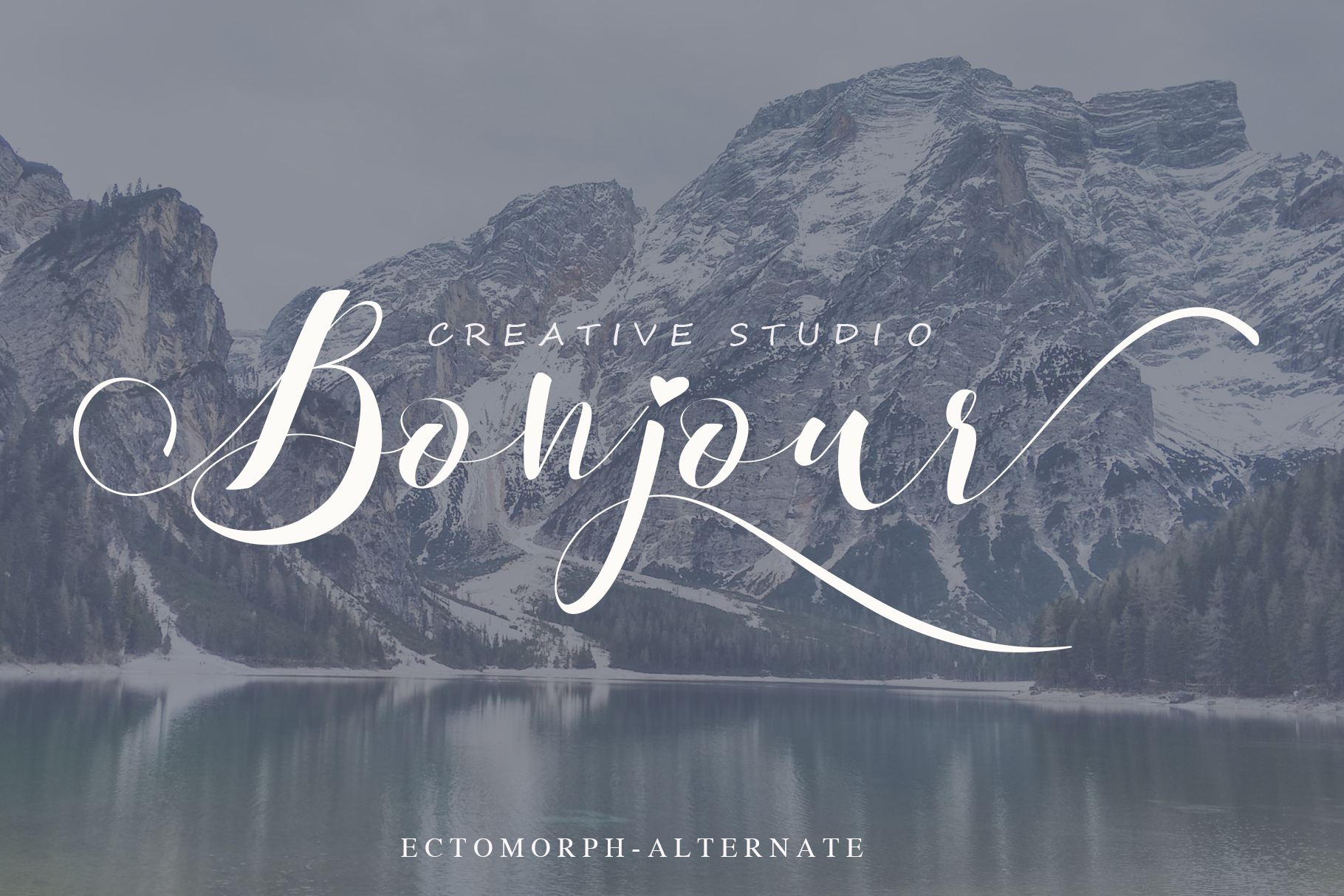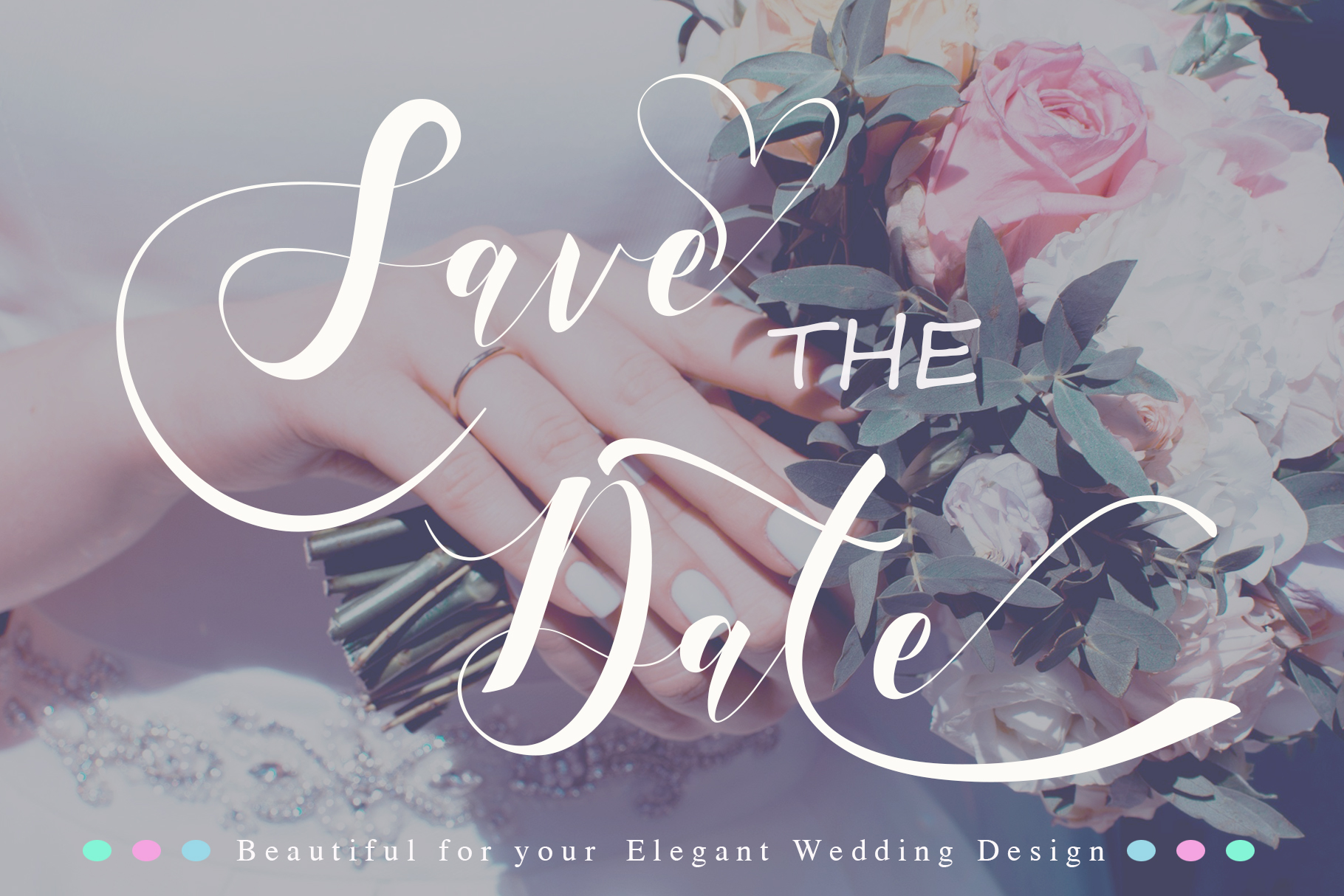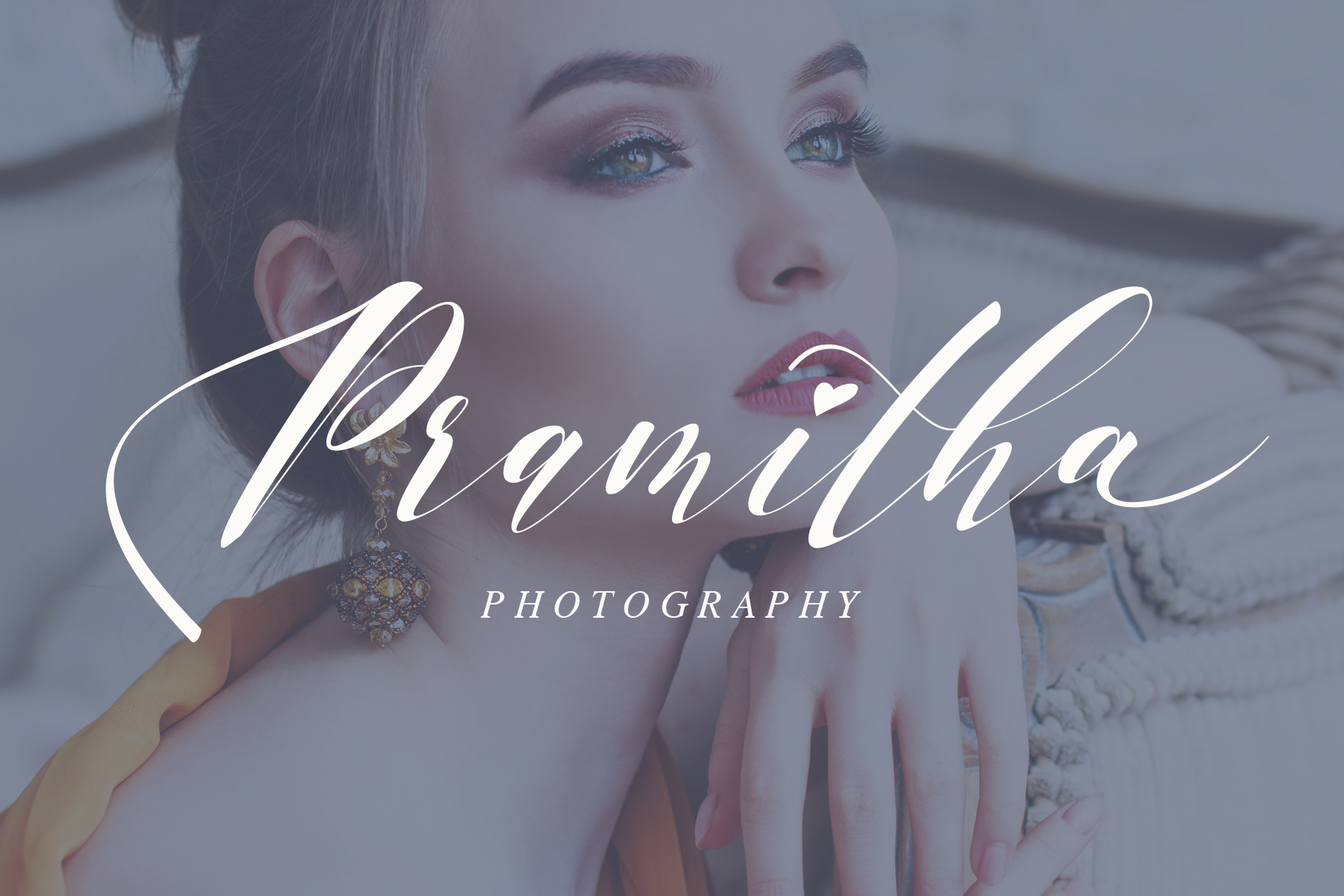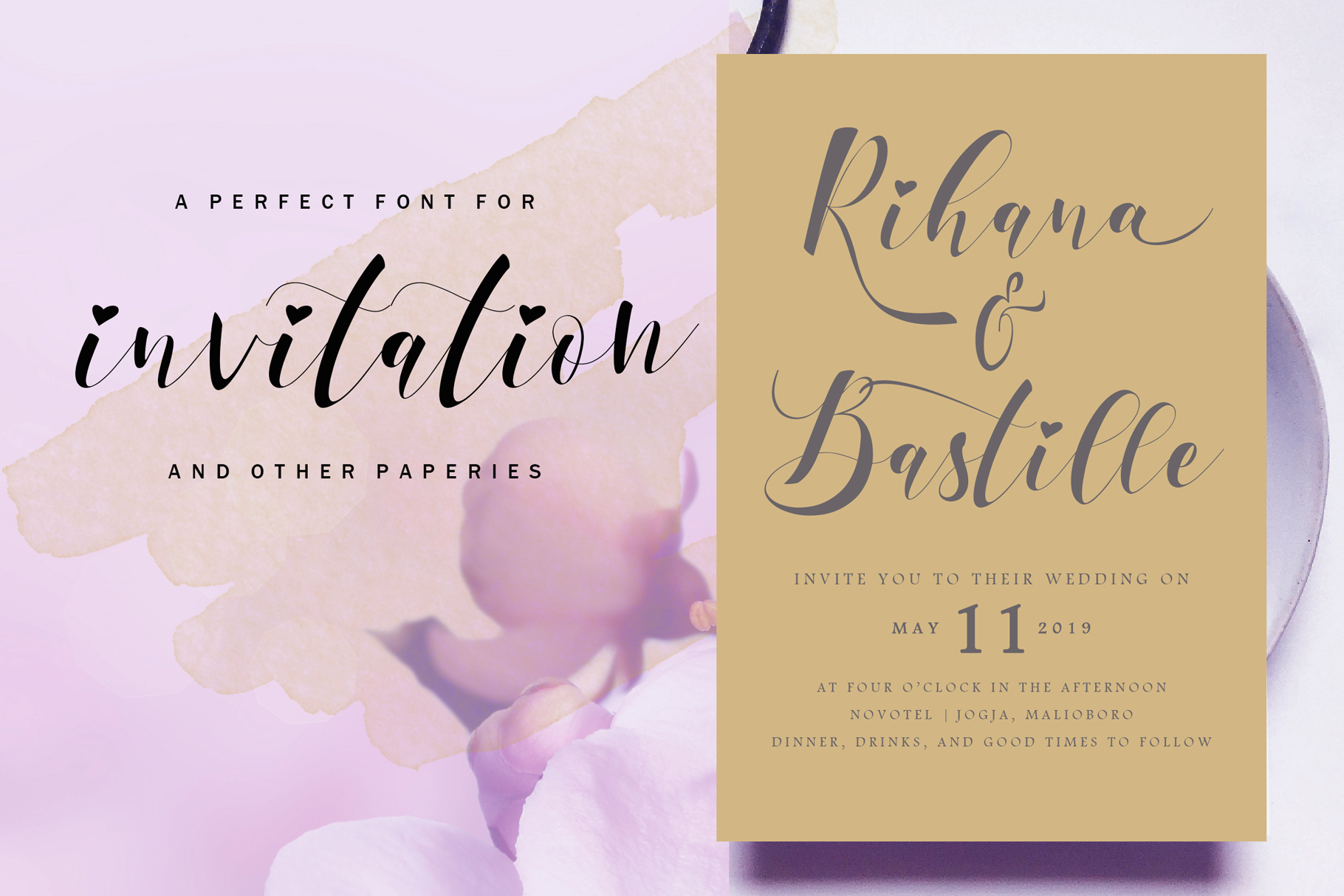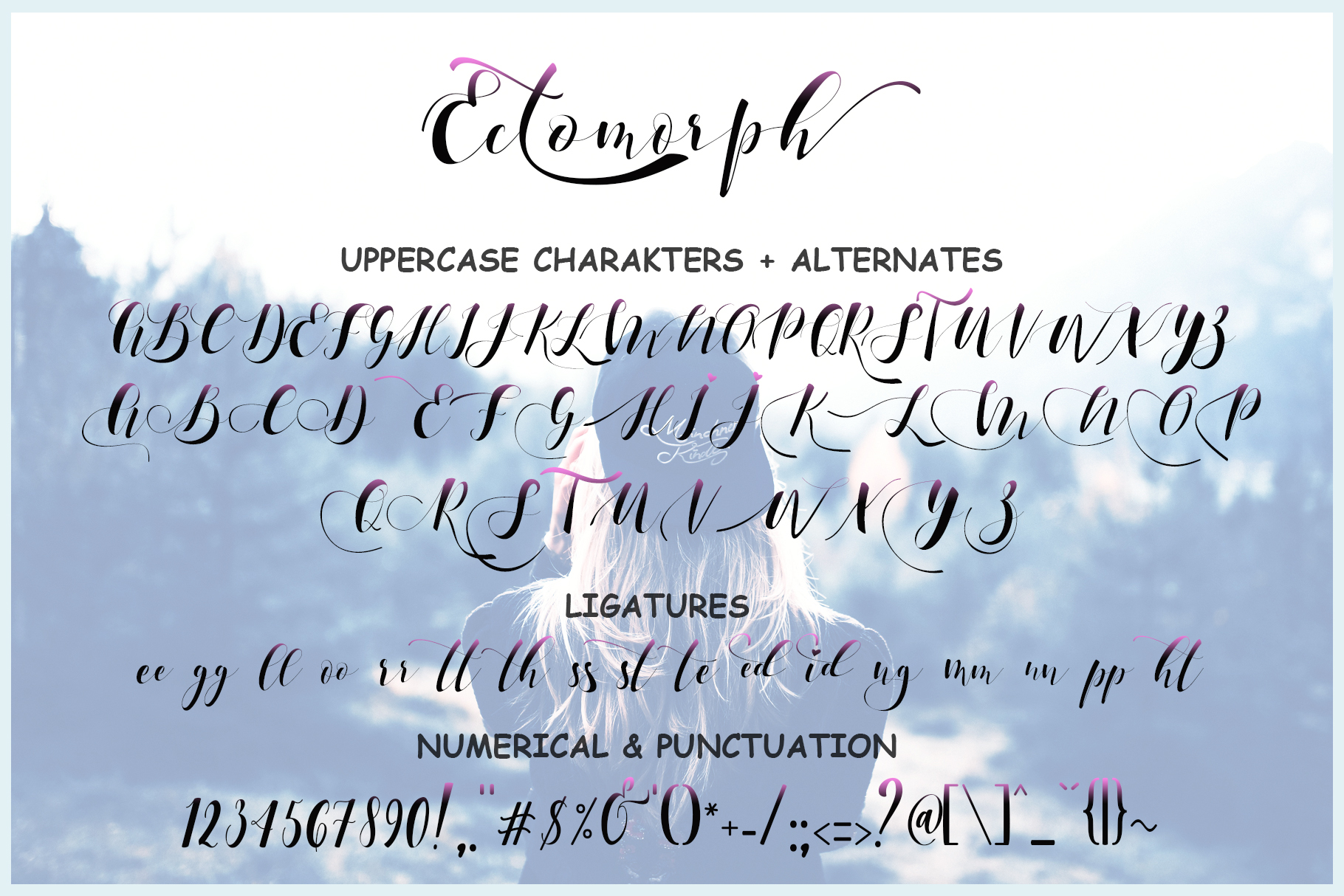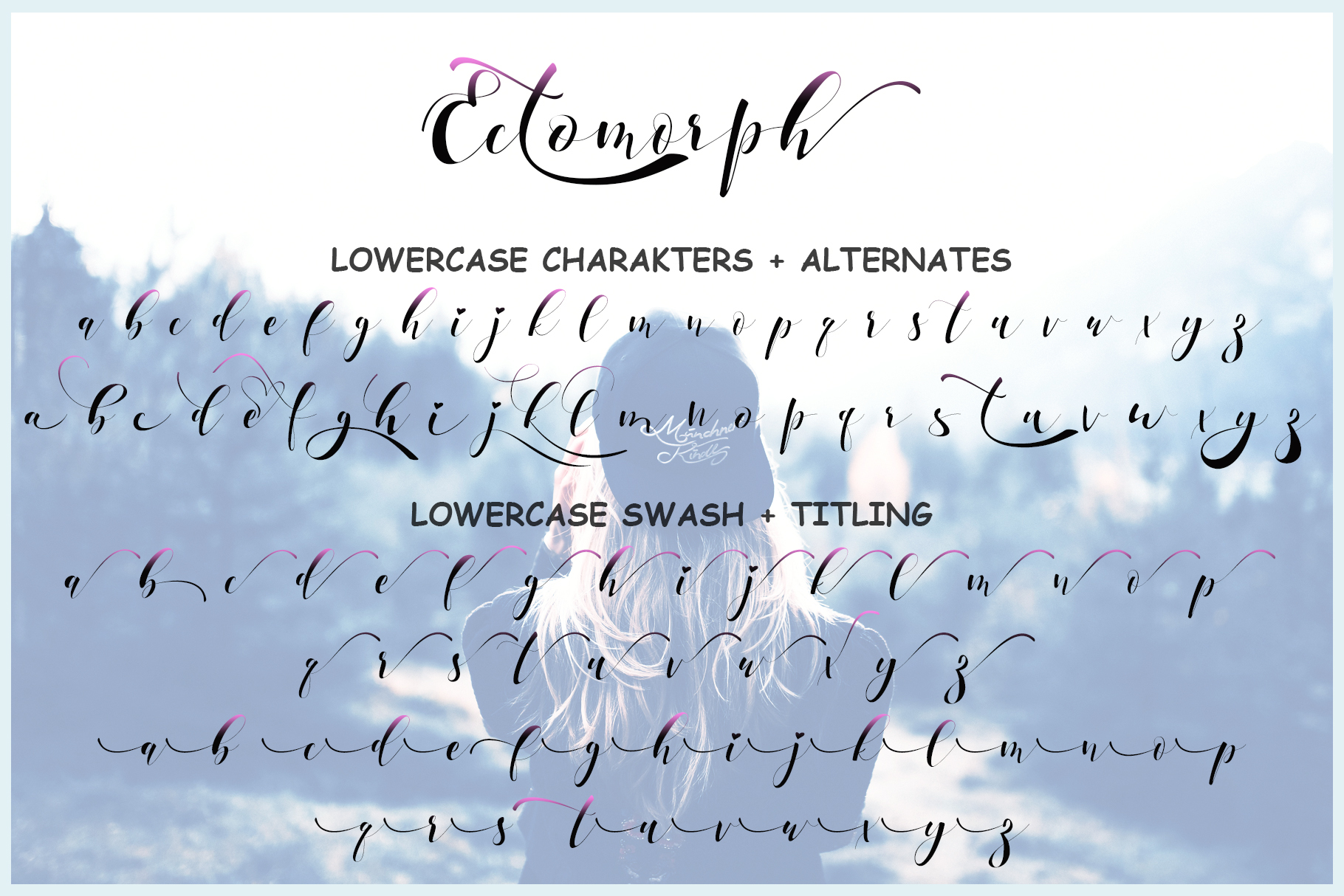
The Ectomorph Font: A Beautiful Handwritten Script for Modern Designs
I’ll never forget the time I was working on a project for a client who wanted a modern and casual look, but with an elegant twist. I spent hours scouring the internet for the perfect font, but nothing seemed to fit the bill. That was until I stumbled upon the Ectomorph Script font. With its stylistic alternates, swashes, and multilingual support, I knew I had found the one. In this article, I’ll share my experience with the Ectomorph Font, its features, and how to make the most of it in your designs.
An Honest Review of Ectomorph Font
- ✨ Beautiful handwritten script with a natural and elegant approach to typography
- ✅ Stylistic alternates and swashes for added creativity and customization
- ✅ Multilingual support for global designs
- ✅ Perfect for modern and casual designs, from branding to invitations
While the Ectomorph Font is amazing, there are a few things to keep in mind:
- ⚠️ Some users may find the font a bit too ornate for very small text sizes
- 🤔 Limited use of uppercase letters, but the font makes up for it with its beautiful stylistic alternates
The Story Behind Ectomorph Font
The Ectomorph Font was designed with the modern creative in mind. Its creator wanted to craft a font that was both elegant and approachable, perfect for designs that needed a touch of sophistication. With its stylistic alternates and swashes, the Ectomorph Font is perfect for designers who want to add a personal touch to their work.
Q: What is the Ectomorph Font?
A: The Ectomorph Font is a beautiful handwritten script font with stylistic alternates, swashes, and multilingual support.
Q: What can I use the Ectomorph Font for?
A: You can use the Ectomorph Font for a variety of designs, from branding and logos to invitations and social media graphics.
Q: Is the Ectomorph Font easy to use?
A: Yes, the Ectomorph Font is easy to use, even for beginners. Its OpenType features make it easy to customize and experiment with different looks.